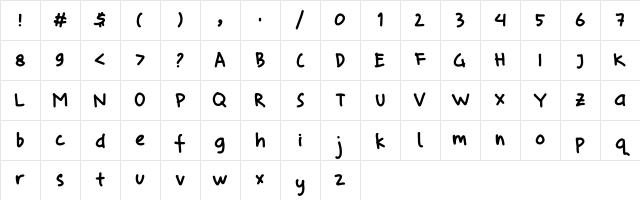
colombo sketches Regular
Design Context for colombo sketches
colombo sketches is a composed and adaptable typeface that performs quietly and consistently across a wide range of design contexts.